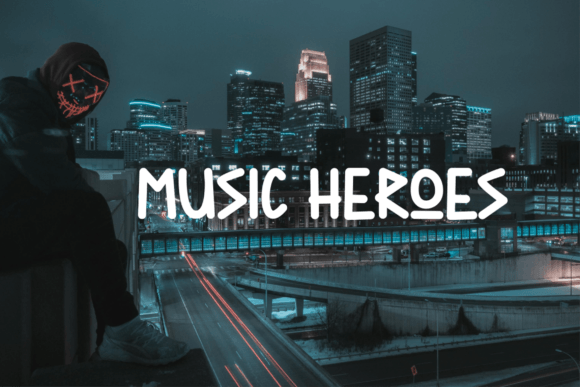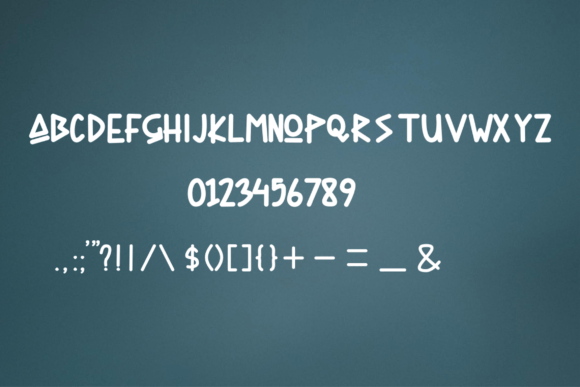
Introduction to Joltera Font
As designers, we’ve all been there – stuck in a creative rut, staring at a blank screen, and desperately seeking the perfect font to bring our vision to life. The search for that elusive ‘wow’ factor can be a daunting task, but what if I told you that your search is over? Enter the Joltera Font, a game-changing display font that’s sure to elevate your next project.
Whether you’re working on a high-profile branding project, creating a bold logo, or designing a t-shirt for a music festival, the Joltera Font is an invaluable resource. Its versatility and unique style make it a standout choice for designers looking to add a touch of authenticity to their work. And the best part? This high-quality font is available for free download, making it an accessible design resource for creatives of all levels.
With its transparent background and sleek design, the Joltera Font is perfect for export and printing, ensuring that your final product looks outstanding in a wide range of contexts. So why settle for ordinary when you can have extraordinary? Discover the Joltera Font and take your creative project to the next level.
Key Features of Joltera Font
- High-quality design for creative projects, ideal for use in graphic design, digital art, and web design.
- Features a unique, modern design with a bold and eye-catching aesthetic, perfect for making a statement in creative projects.
- High-resolution design, suitable for use in print and digital media, including posters, flyers, and website graphics.
- Easy to customize and modify, making it a versatile design resource for a variety of creative applications.
Honest Review: Joltera Font
- ✨ Unique and modern design aesthetic that sets it apart from other fonts
- ✨ Clear and transparent background, making it easy to work with
- ✨ Supports a wide range of languages, making it a versatile design resource
- ⚠️ Limited character set, which can be a problem for designers working on longer texts
- ⚠️ Not ideal for use in small text sizes, as it can become difficult to read
Overall, I’m thoroughly impressed with the Joltera Font. While it may not be perfect, its strengths far outweigh its limitations, making it a valuable addition to any designer’s toolkit. I’d highly recommend it for any creative project requiring a modern and sophisticated font.
Tips for Getting the Most Out of Joltera Font
Use the Joltera Font in combination with other design elements, such as graphics and images, to create a visually appealing design. Experiment with different font sizes, colors, and styles to find the perfect look for your project. The Joltera Font is a versatile design resource that can be used in a wide range of creative projects.
The Joltera Font is perfect for use in creative projects, such as brochures, flyers, and posters. It is also great for use in presentations and documents, such as PowerPoint and Word. The Joltera Font is a high-quality design resource that is perfect for designers looking for a free download with a transparent background.